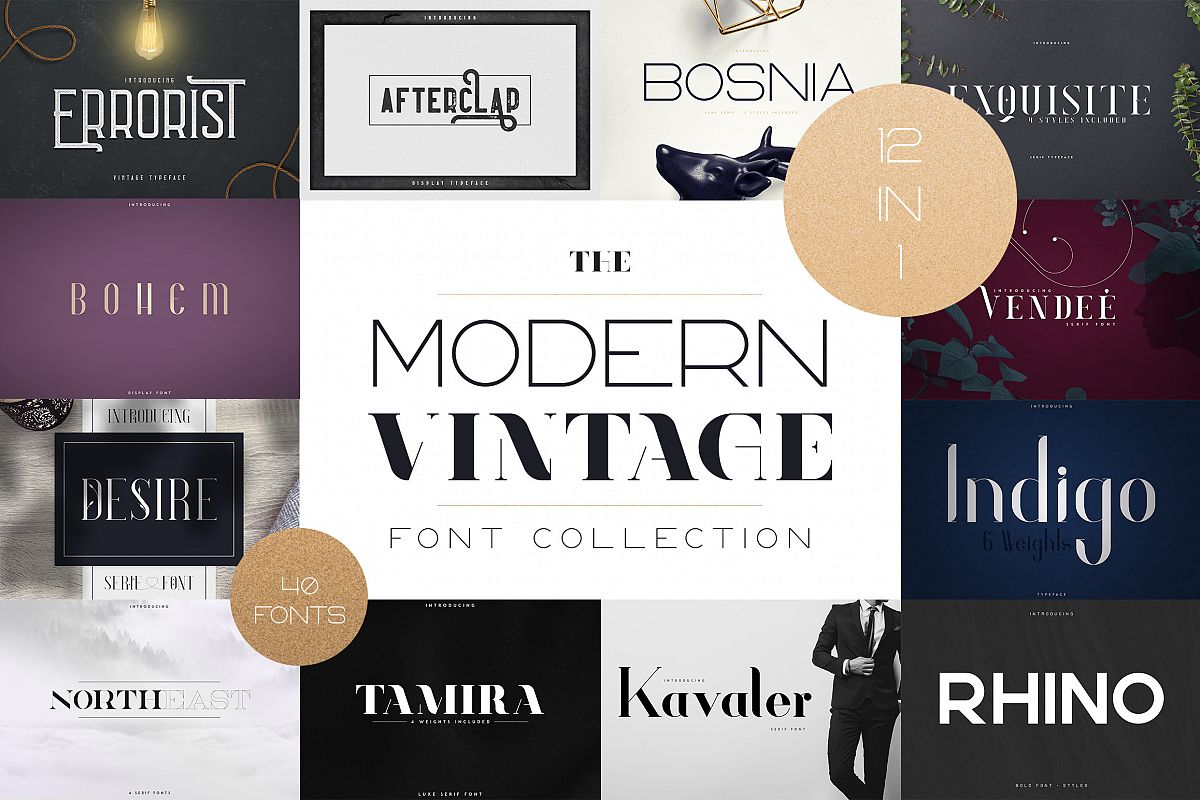
The Modern Vintage Font Collection
Introducing The Modern Vintage Font collection 12in1
In this collection you will find :
Afterclap typeface - 3 styles
• Uppercase,lowercase, numeral,punctuation & Symbol
• Regular
• Outline
• Textured
• Tons of alternative glyphs
Errorist - Vintage Typeface
• Uppercase,lowercase, numeral,punctuation & Symbol
• Regular
• Outline
• Textured
• Tons of alternative glyphs
Bosnia - Sans Serif font
• Uppercase,lowercase, numeral,punctuation & Symbol
• Clean
• Wide
• Thin
• Regular
• Outline
Exquisite - Serif Typeface
• Uppercase,lowercase, numeral,punctuation & Symbol
• Clean
• Regular
• Outline
• Alternative
• Alt Outline
Bohem - Display font
• Uppercase,lowercase, numeral,punctuation & Symbol
• Regular
• Outline
Vendee - Serif font
• Uppercase,lowercase, numeral,punctuation & Symbol
• Clean
• Alternative glyphs
Desire - Luxury Serif font
• Uppercase,lowercase, numeral,punctuation & Symbol
• Regular
• Outline
• Heart shaped alternative glyphs
Indigo Typeface
• Uppercase,lowercase, numeral,punctuation & Symbol
• Clean
• 6 weights - Extra light, Light, Regular, Bold, Extra bold, Black
NorthEast serif font
• Uppercase,numeral,punctuation & Symbol
• 4 fonts
• Regular style
• Outline style
• Rough style
• Additional style
Tamira - Luxe Serif typeface
• Uppercase,numeral,punctuation & Symbol
• 4 weight
• light
• regular
• bold
• black
Kavaler - serif font
• Uppercase,lowercase, numeral,punctuation & Symbol
• Clean
Rhino Font
• Uppercase,lowercase,numeral,punctuation & Symbol
• Multilingual
• Regular
• Dots
• Lines
• Outline
• Outline Bold
• Rough
• Striped